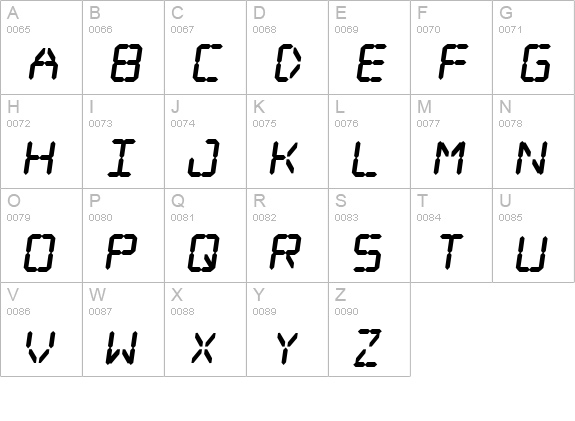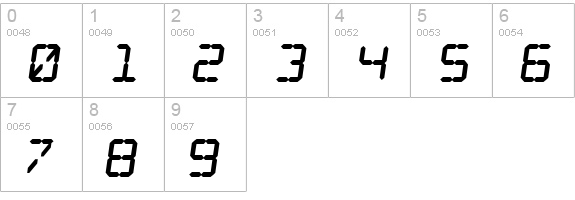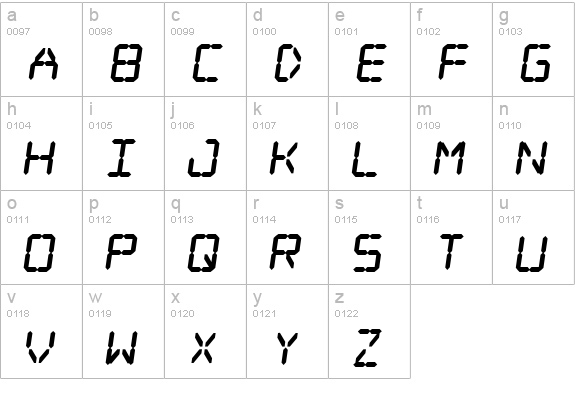
Digital dream Fat Skew Font Details
Digital dream Fat Skew font is a bold and eye-catching typeface that exudes a sense of modernity and creativity. Its unique design features thick, skewed letterforms that make a strong visual impact on any project. This font is perfect for headlines, posters, logos, and other design projects where you want to make a statement. The best part about Digital dream Fat Skew font is that it is completely free to use. You can download it easily at FontsMarket.com and start using it in your designs right away. Whether you're a designer looking to add a unique touch to your work or someone looking for a fresh and exciting font for personal projects, Digital dream Fat Skew font is a fantastic choice. Don't miss out on this free and versatile font that will take your designs to the next level.